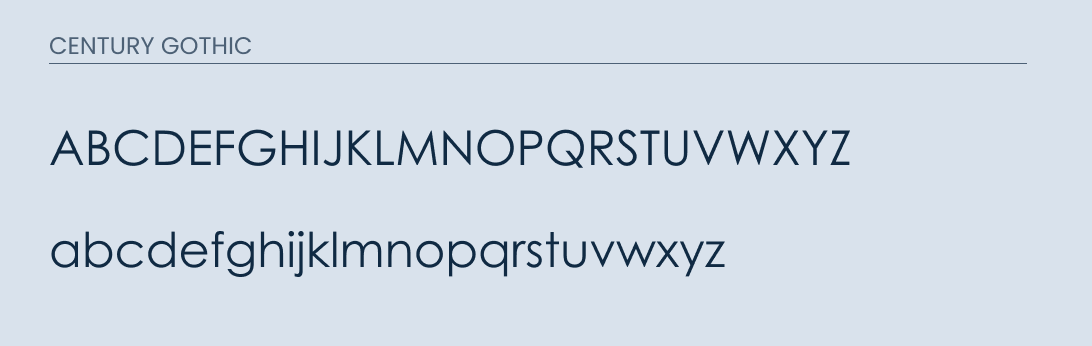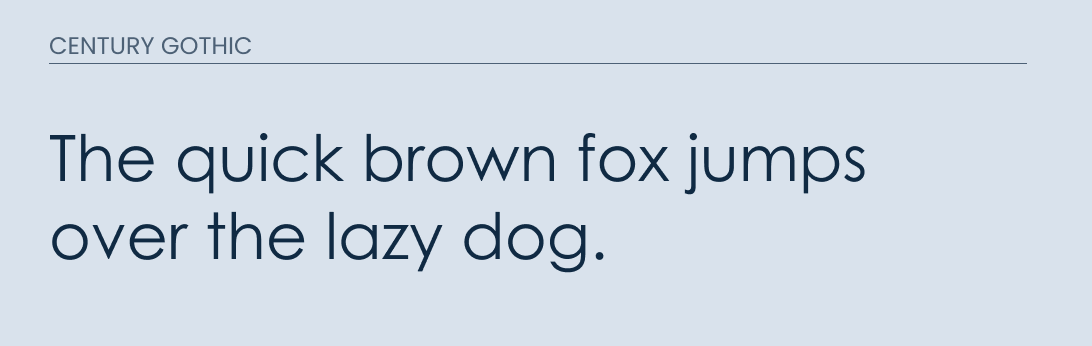
Google fonts century.
Fact is that century gothic copperplate gill sans are not web safe fonts.
So whats left then is the normal standard list of fonts we already know since ages.
As variable fonts make their way into google fonts learn what they are and their benefits for digital design better compression for developers greater expression for designers and finer text typography for readers.
Appearing as if it was written in the 18th or 19th century with experienced penmanship from the tip of a fountain.
They re the cool hip thing to use and as a result so many people us them.
If you re looking for classy but contemporary serif mermaid is a clean font to incorporate in your next aesthetic post.
Century schoolbook is a modern serif typeface designed by morris fuller benton in 1924.
It was originally designed to be an easy to read font for use in textbooks.
Many americans first learned to read with books set in century schoolbook which can give the typeface a pleasant nostalgic feeling.
I think often google fonts are strewn across designs that are lacking the fundamentals of good design.
But design is a spectrum ranging from bad to great and as bell curves go few designs are truly great.
I m wondering oh if this list will change in future with maybe more people using new os systems with more common fonts.
By simple math most designs using google fonts need.
It s also been around for almost a century and isn t going anywhere making it the perfect font for any retro aesthetic.